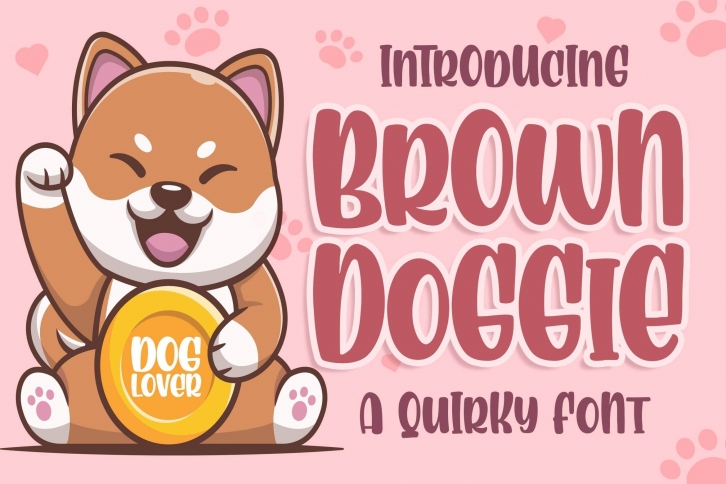
Brown Doggie a Quirky is a trendy and unique font with an authentic style. It was designed by Blankids and it's a great choice for creative people who need such a font. It was released on October 13, 2021 and the file size is 13.44 MB. Brown Doggie a Quirky will add an organic vibe to any design idea!